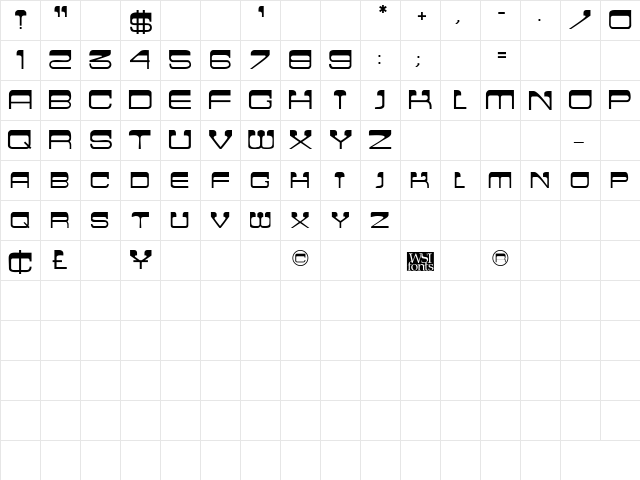
Crew Cut Caps Regular
Design Context for Crew Cut Caps Typeface
Crew Cut Caps offers clean, dependable letterforms without strong stylistic allegiance, making it a practical choice for designers who need flexibility.
Pro Tip: Use Crew Cut Caps in both headline and body roles to test its range before committing to a single application.